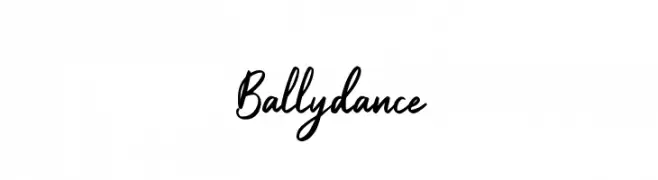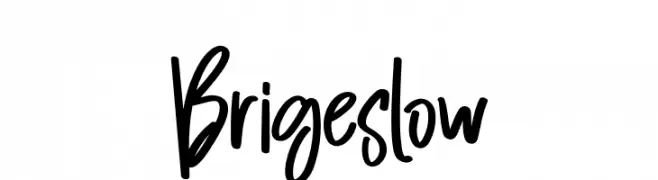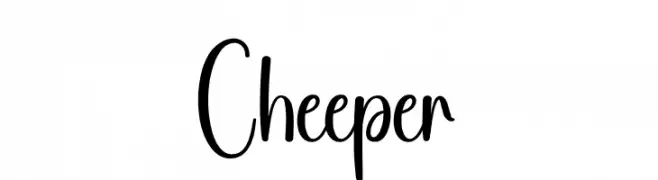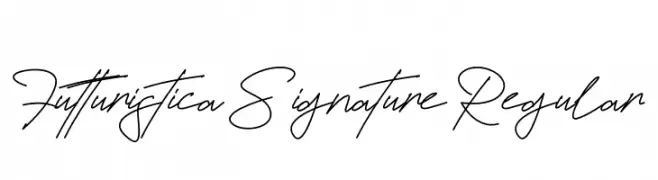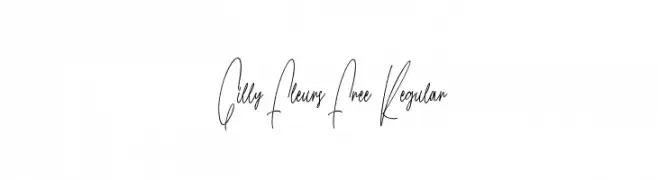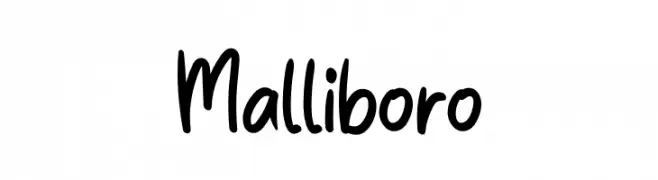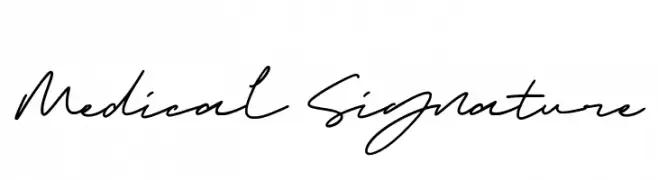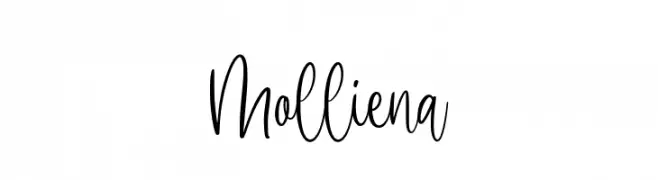
A dynamic script font with fluid, connected strokes and a handwritten style.
A lively handwritten font with fluid strokes and a casual elegance.
A bold, expressive handwritten font with a lively and informal style.
A playful, handwritten-style font with tall, narrow characters and consistent stroke thickness.
A modern, elegant handwritten script with fluid strokes.
An elegant, flowing script font with thin, delicate lines and graceful curves.
A playful, casual handwritten font with a lively and informal style.
A playful, casual handwritten font with smooth, rounded strokes.
A cursive, handwritten font with a signature-like elegance.
A playful, whimsical script font with flowing, interconnected letters.